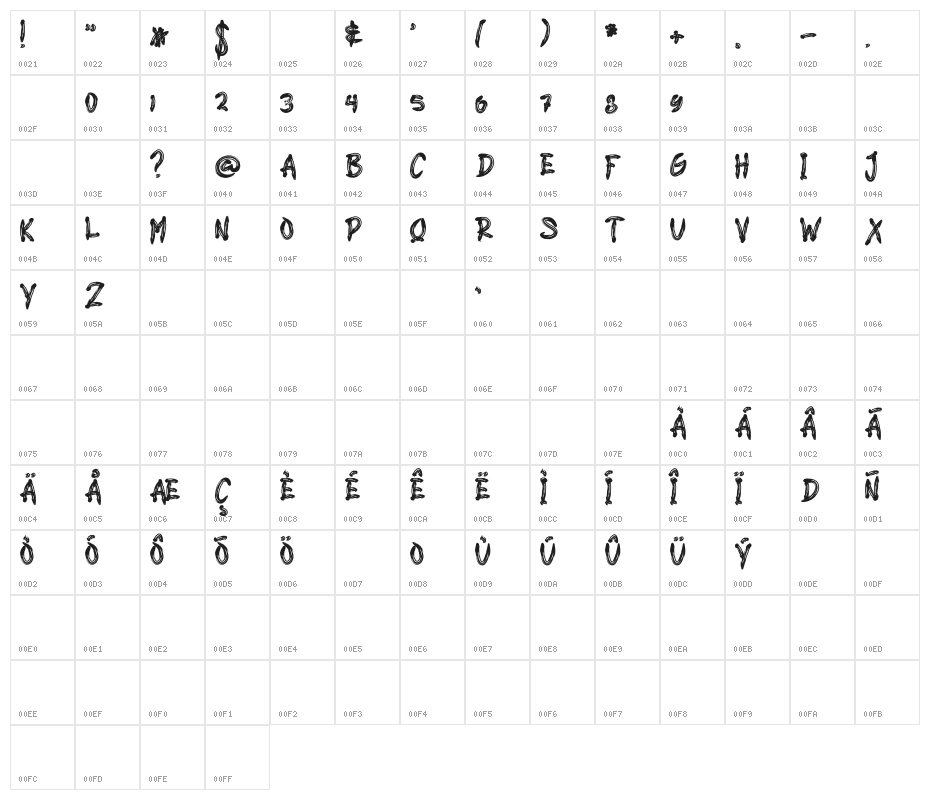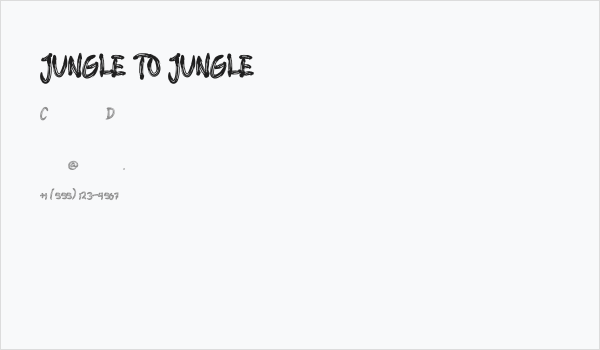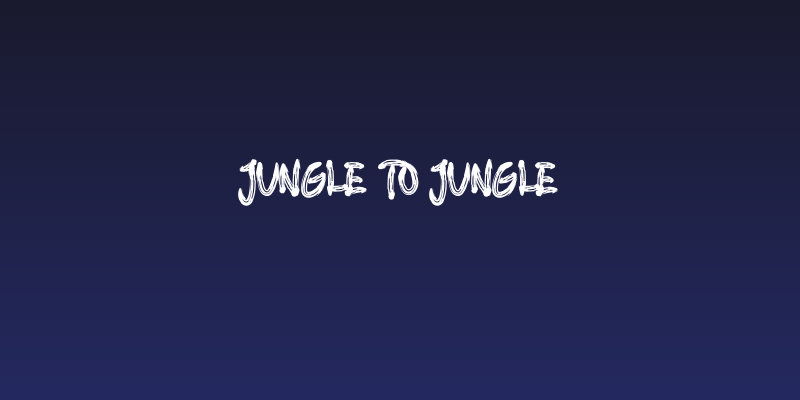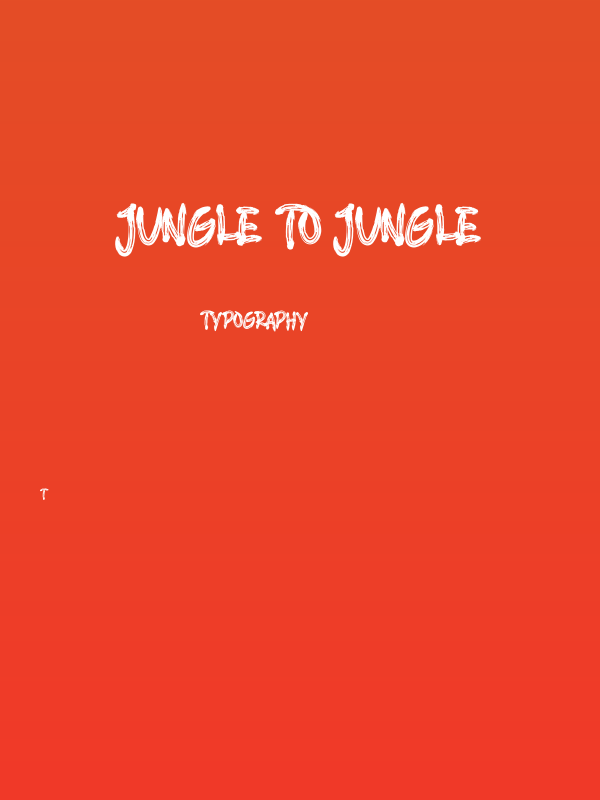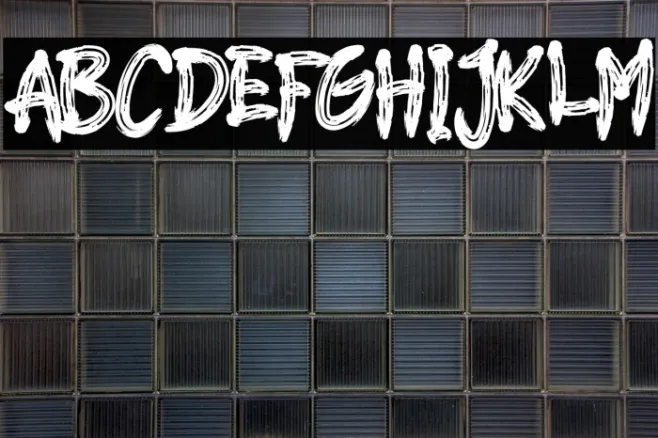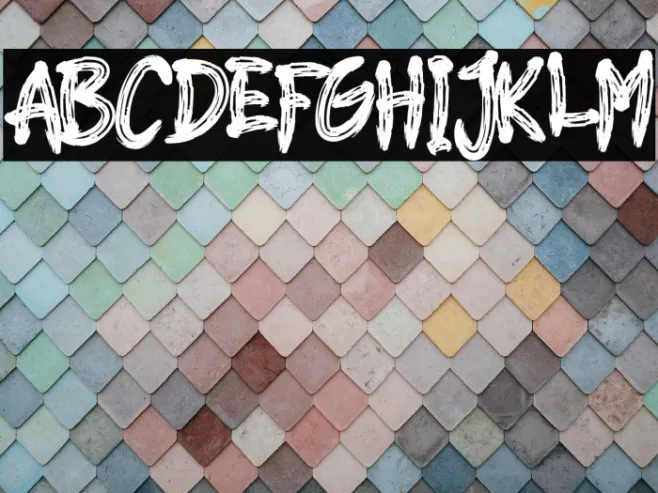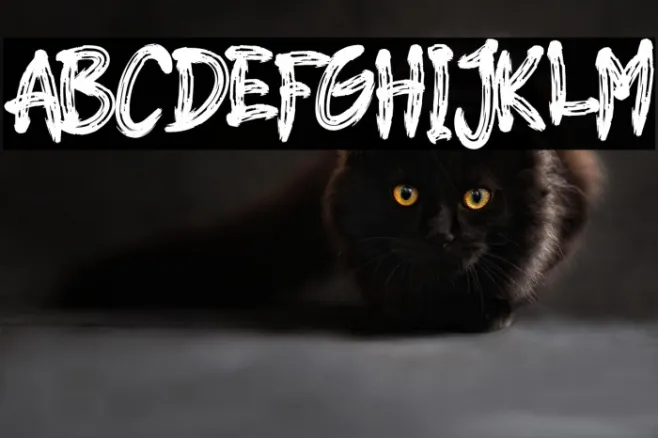
JUNGLE TO JUNGLE Font
JUNGLE TO JUNGLE Description
This font exudes a wild and adventurous spirit, reminiscent of untamed jungles and bold explorations. The letters are crafted with a brush-like texture, giving them a rugged and organic feel. Each character appears to have been painted with swift, confident strokes, creating an energetic and dynamic appearance. The uppercase letters are bold and commanding, while the numbers and special characters maintain the same lively style. This font is perfect for projects that require a sense of excitement and adventure, such as travel posters, outdoor event promotions, or themed merchandise. Its unique style captures attention and conveys a sense of movement and vitality.
| Proposed Projects | Travel posters, outdoor event promotions, themed merchandise, adventure branding. |